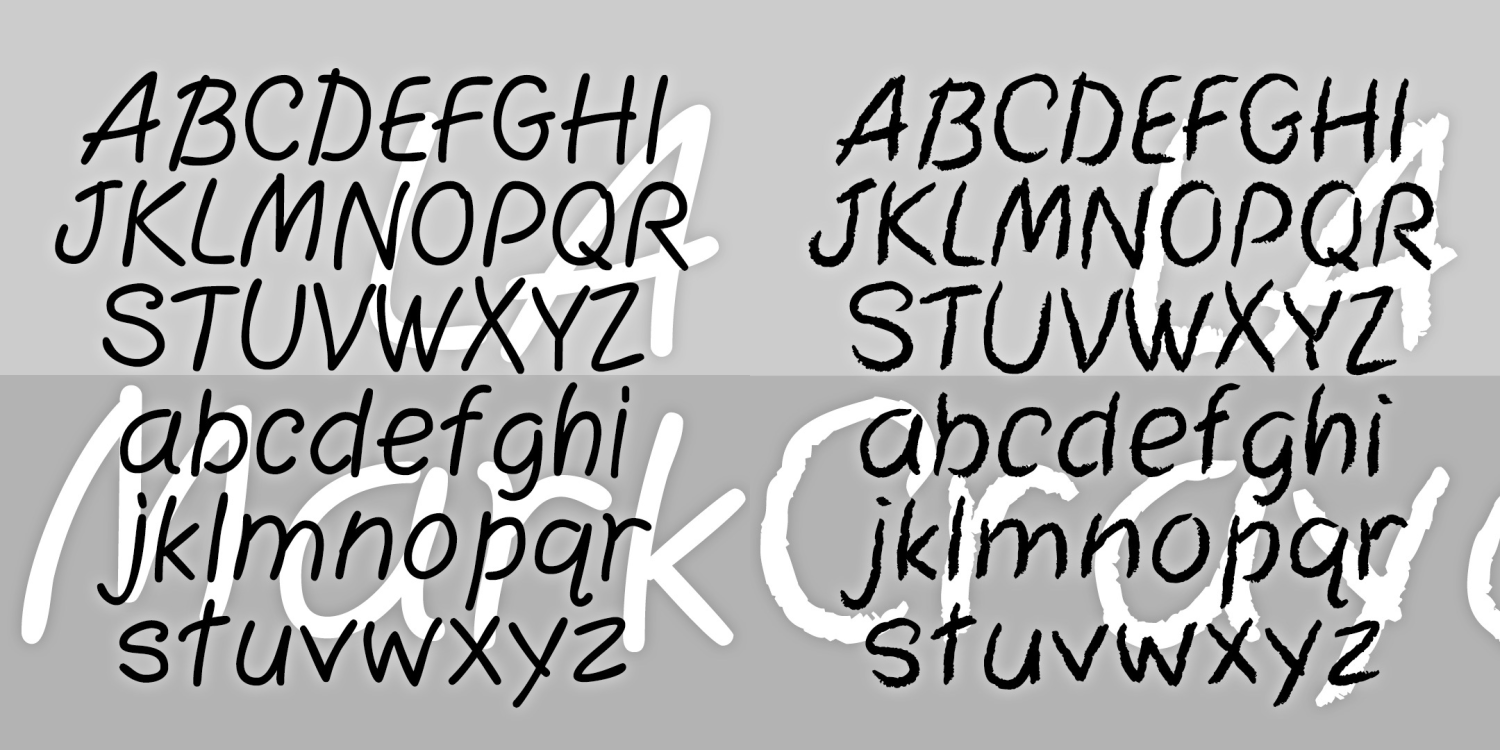
LA Marker & LA Crayon
LA MARKER and LA CRAYON are big friendly handwriting fonts. They were inspired by the Apple Classic bitmap font "Los Angeles" which disappeared with the transition to TrueType fonts. Marker has a smooth edge, Crayon is rougher, suggestive of the original bitmap jagged edge.
The LA Marker & LA Crayon font family includes 203 glyphs.